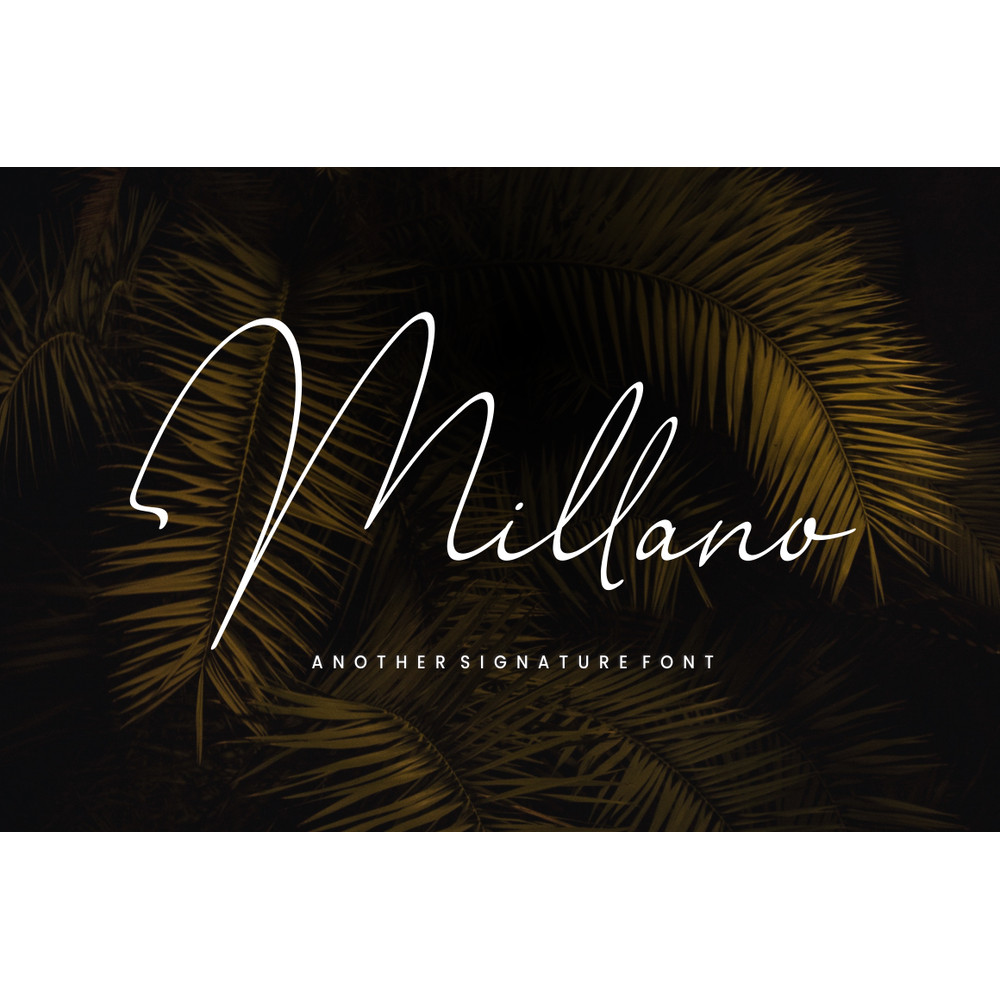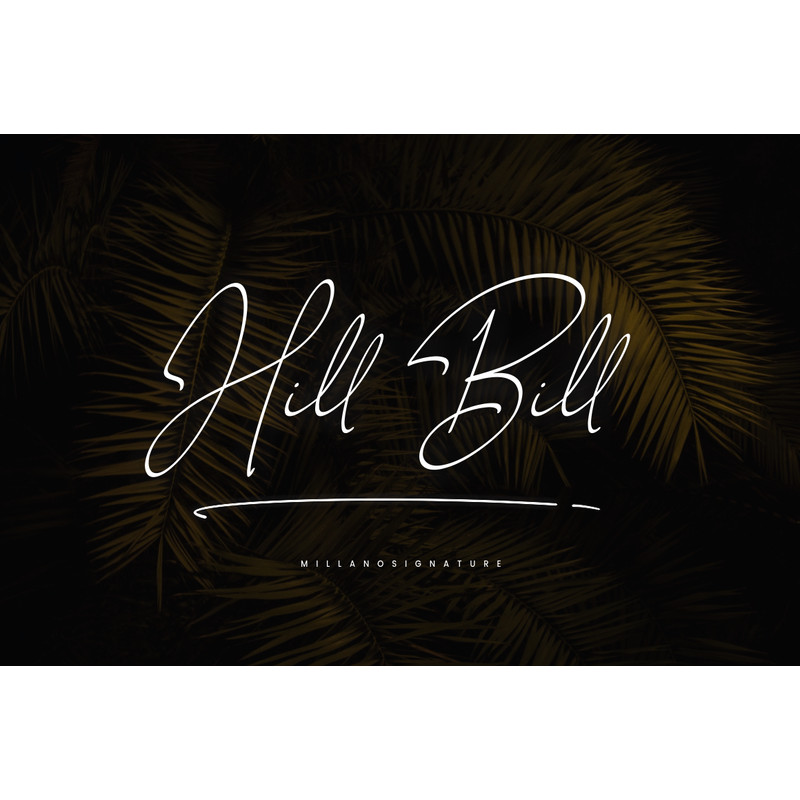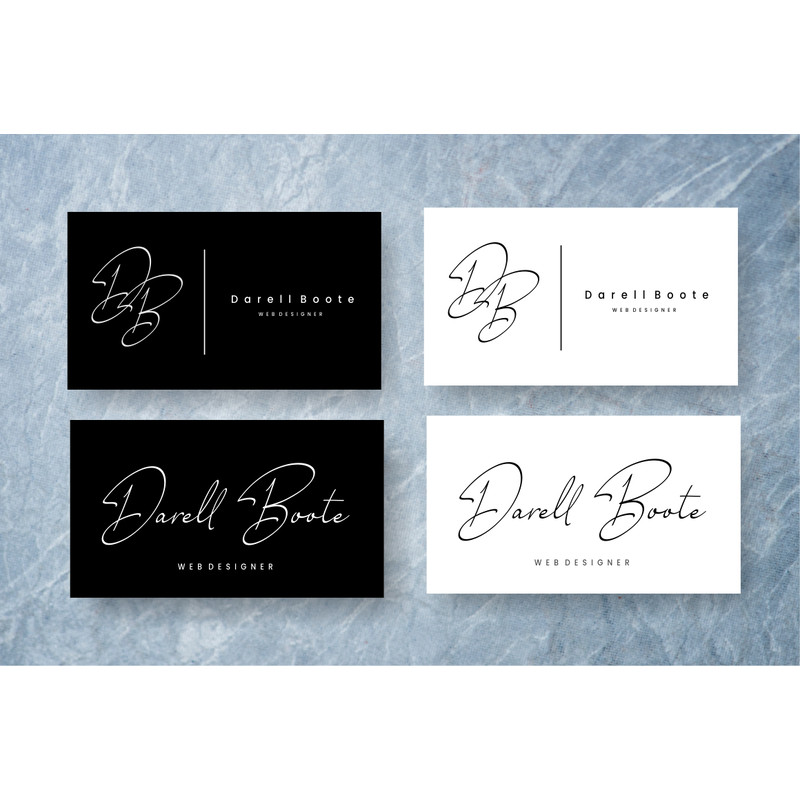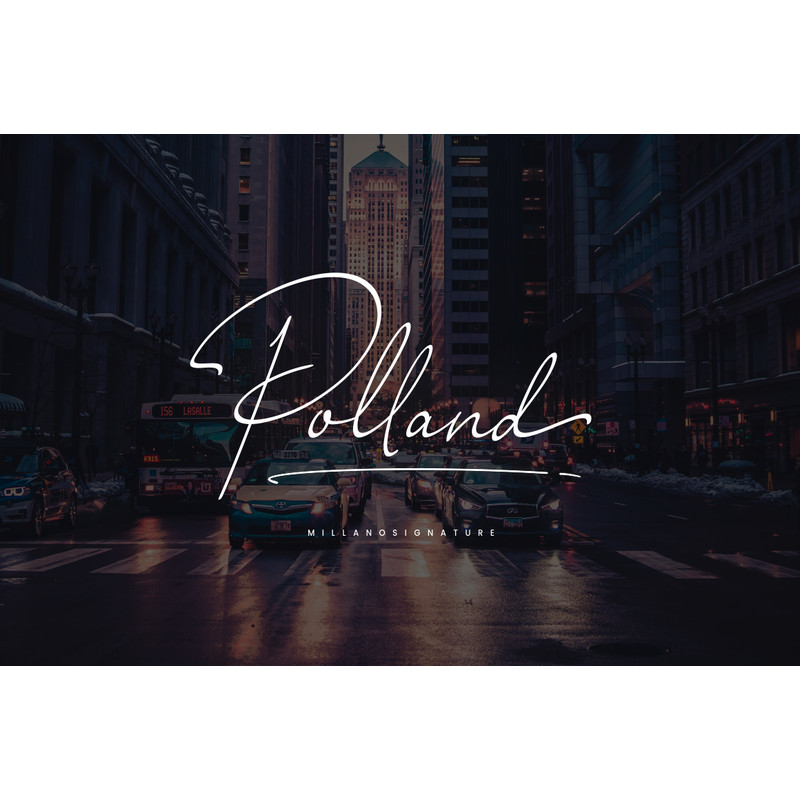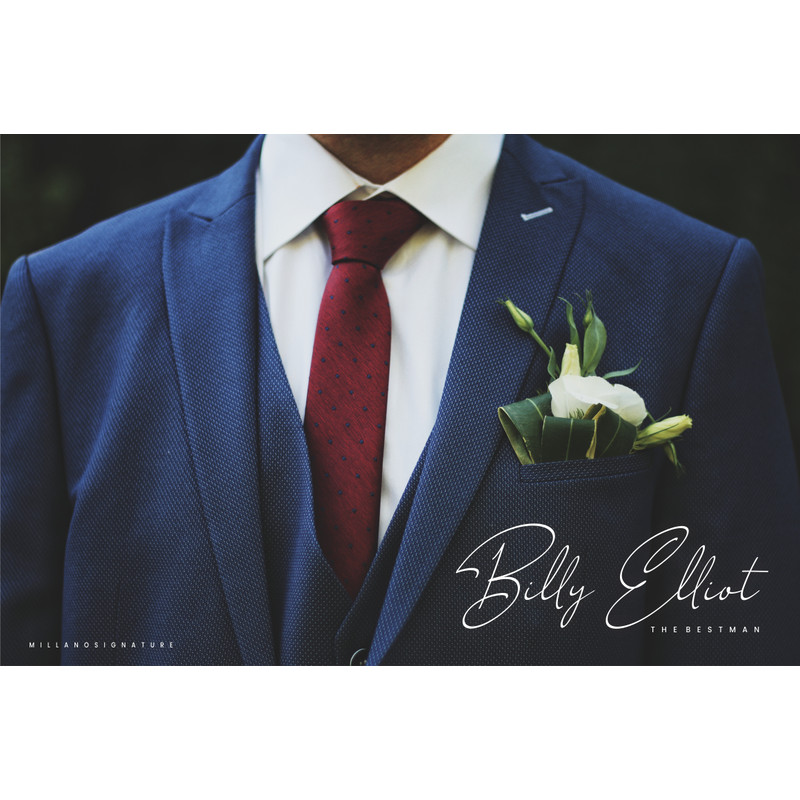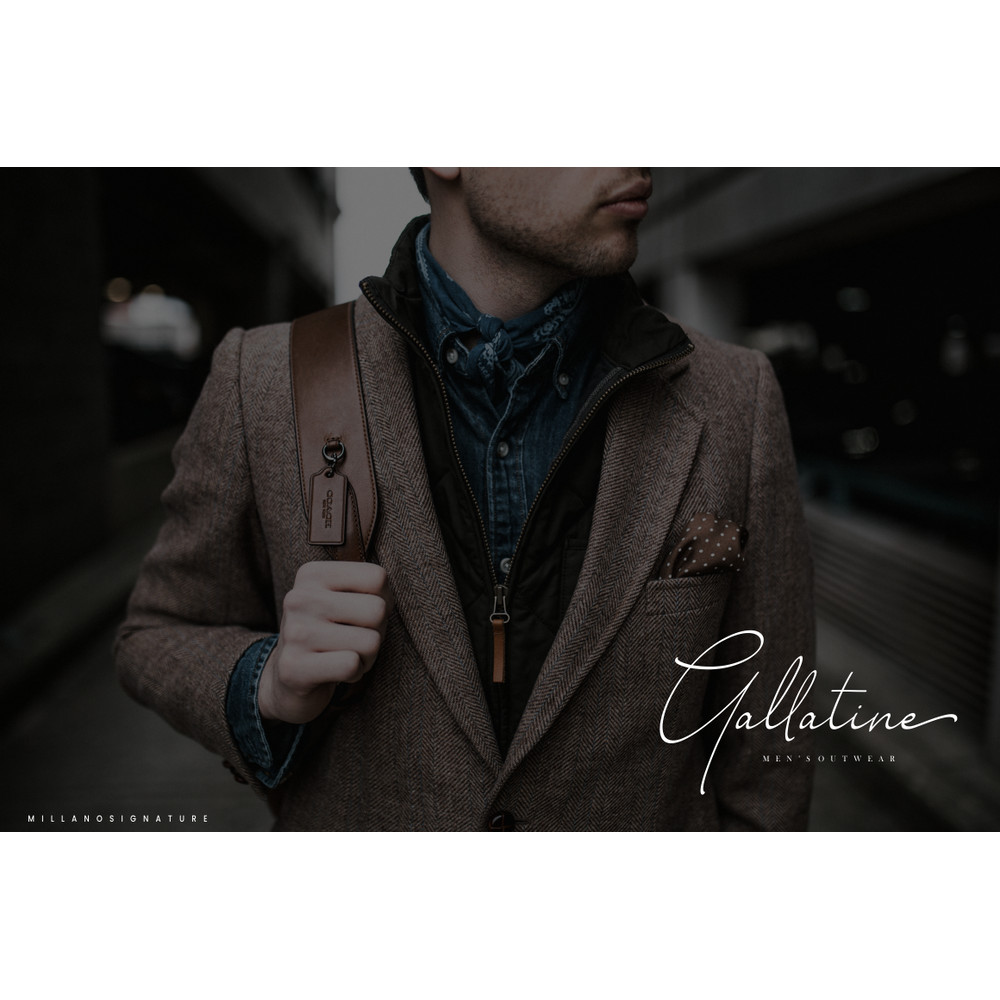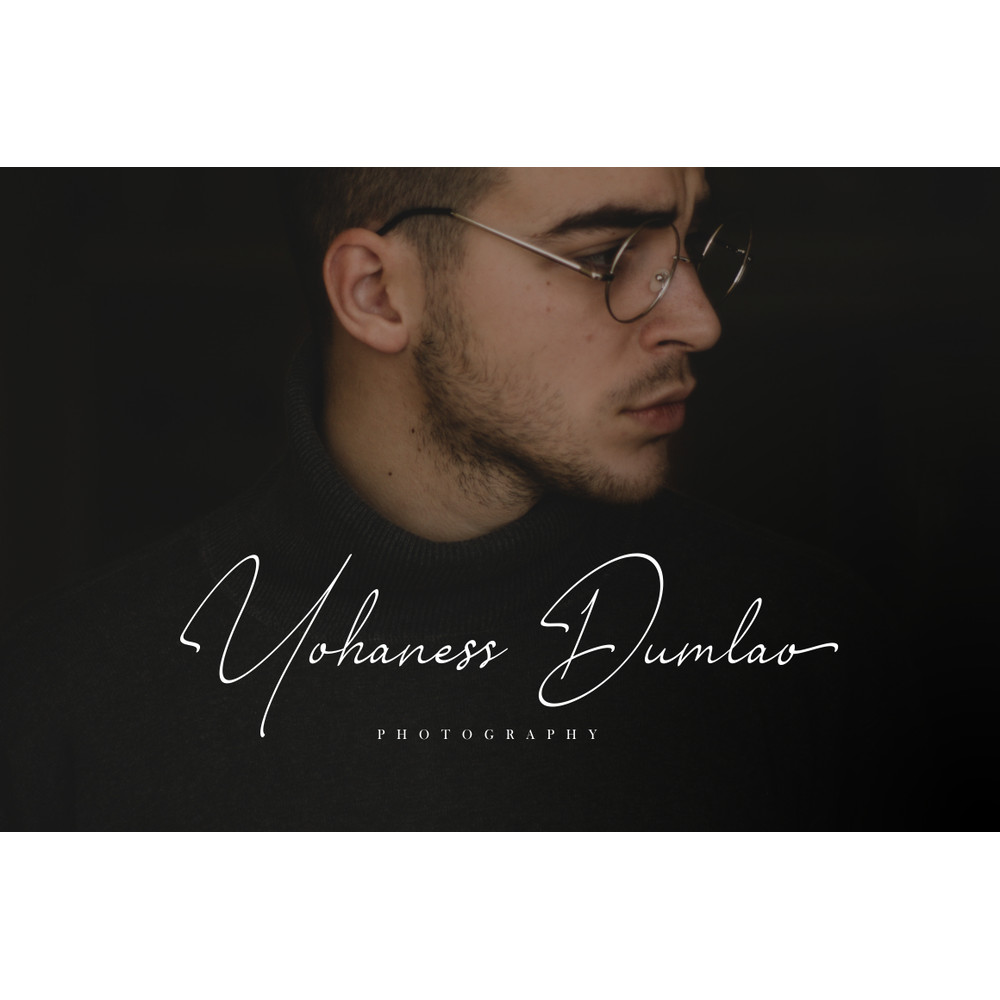
Introducing Millano – a new modern signature font ! this signature font is perfect for your personal branding and any awesome project, such as : logos, invitations, stationery, wedding designs, social media posts, advertisements, product packaging, product designs, labels, photography, watermarks, special events and much more !